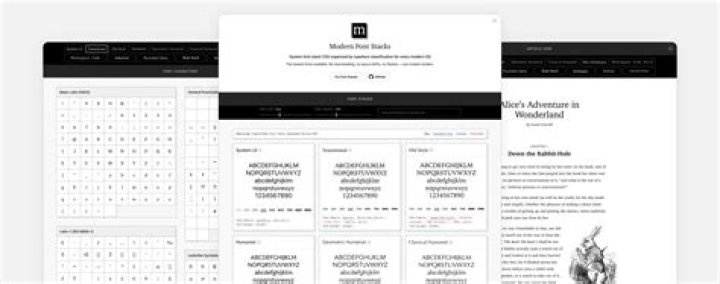
A font stack is a list of fonts in the CSS font-family declaration. The fonts are listed in order of preference that you would like them to appear in case of a problem, such as a font not loading.
What is Verdana in CSS?
The following fonts are the best web safe fonts for HTML and CSS: Arial (sans-serif) Verdana (sans-serif) Helvetica (sans-serif)
How do I use multiple font family in CSS?
Multiple variations of a font family can be declared by changing the font-weight and src property of @font-face rule.
What font family is Verdana?
sans-serif
Verdana is a humanist sans-serif typeface designed by Matthew Carter for Microsoft Corporation, with hand-hinting done by Thomas Rickner, then at Monotype….Verdana.
Is Museo a web safe font?
Design. In fact, fonts such as Museo Slab, Proxima Nova, Chunk Five, Zurich and many others are often chosen because they actually add an extra level of finesse to the global design of a page. On the other hand, there are many designers who think that web safe fonts are just fine for their needs.
What font families are available in CSS?
CSS Font Families
- Sans-Serif. Arial, sans-serif; Helvetica, sans-serif; Gill Sans, sans-serif;
- Serif. Times, serif; Times New Roman, serif;
- Monospace. Andale Mono, monospace; Courier New, monospace;
- Cursive. Comic Sans, Comic Sans MS, cursive; Zapf Chancery, cursive;
- Fantasy. Impact, fantasy; Arnoldboecklin, fantasy;
How do I use multiple Google fonts in CSS?
How do I request multiple font families?
Specifying font families and styles in a stylesheet URL To request multiple font families, separate the names with a pipe character ( | ). Requesting multiple fonts allows you to use all of those fonts in your page.
Is Verdana Google font?
Not a Google employee. Thank you for clarifying and for the screen shots. Your screen shot has Verdana listed under “serif fonts,” but Verdana is a sans serif (not a serif) font.
Is Verdana font free?
Introducing the Verdana Font that is the sans-serif typeface and this font got so much popularity because of this font readability factor and this font was released by British designer Matthew Carter….Font Details.
How do I import a font-family into CSS?
What is the default font for CSS?
W3.CSS pages are easy to read, even for people with slight reading disabilities. W3.CSS default font-size is 15px The default font is Verdana, which has a good letter spacing The default line-spacing (1.5) is also very good
What is the font style in CSS?
The CSS font-style property is used to set the style of the font to italic or oblique. If no italic or oblique face is available, oblique faces can still be rendered artificially by the browser.
What are CSS fonts?
CSS font-variant. The font-variant property is a shorthand property for a set of properties that provide control over stylistic font features. In CSS1 and CSS2, the font-variant property’s sole purpose was to set text to small caps.
What are text styles?
A text style is a named collection of text settings that controls the appearance of text, such as font, line spacing, justification, and color. You create text styles to specify the format of text quickly, and to ensure that text conforms to industry or project standards. When you create text, it uses the settings of the current text style.